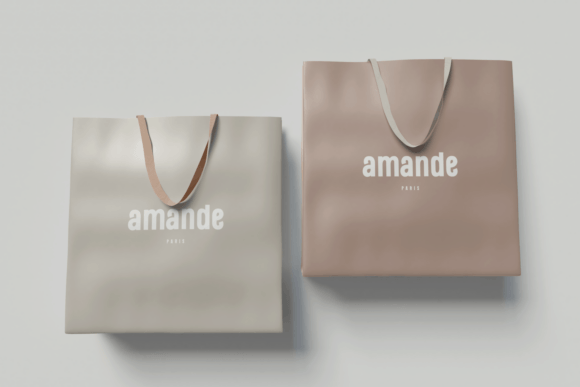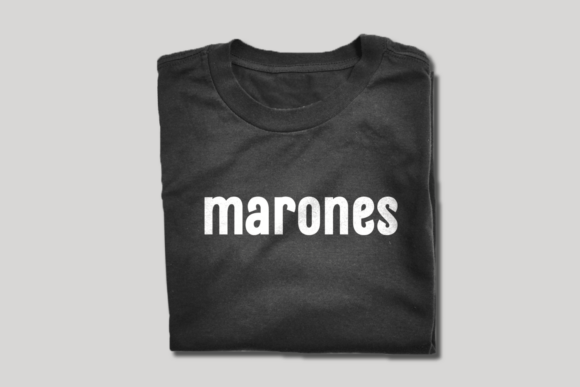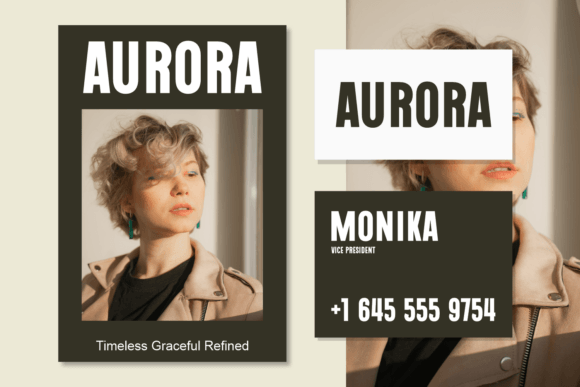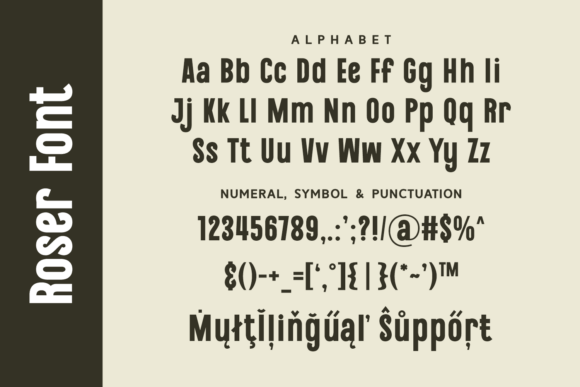
Introduction to Roser Font
Roser is a modern, elegant sans-serif font with clean lines and a minimalist design.
Perfect for branding, headlines, and digital content, it combines sophistication and readability Its versatile style adapts seamlessly to contemporary designs, offering a polished and professional appearance.
Roser Font offers exceptional quality and versatility, making it a valuable addition to your design toolkit. Whether you’re creating for personal projects or commercial use, Roser Font delivers professional results.